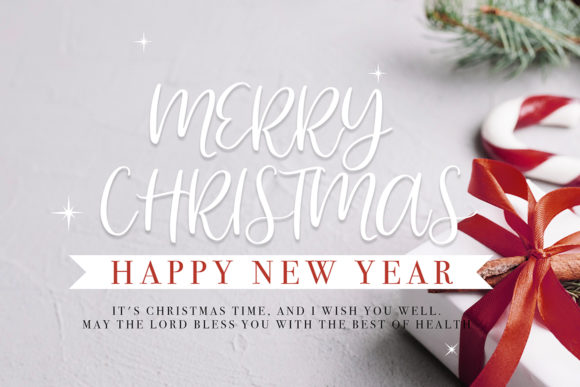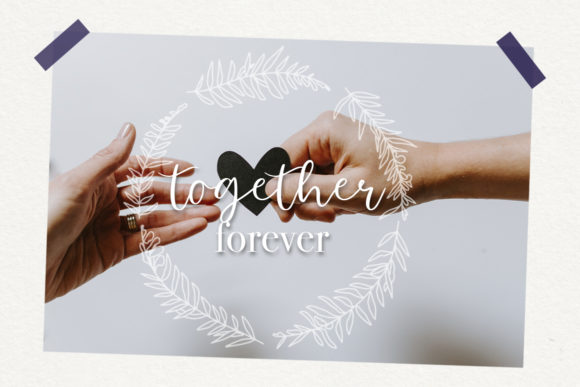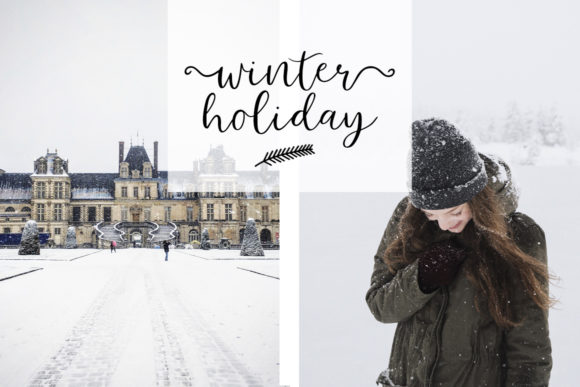
About Midnight Sleighride Font
Midnight Sleighride is an elegant script font with a contemporary atmosphere and impeccable form, inspired by timeless classic calligraphy. Not too thin and not too thick, balanced and varied, Midnight Sleighride was designed to enhance the beauty of your projects.